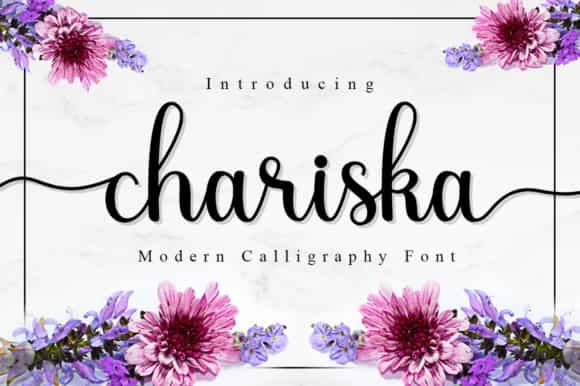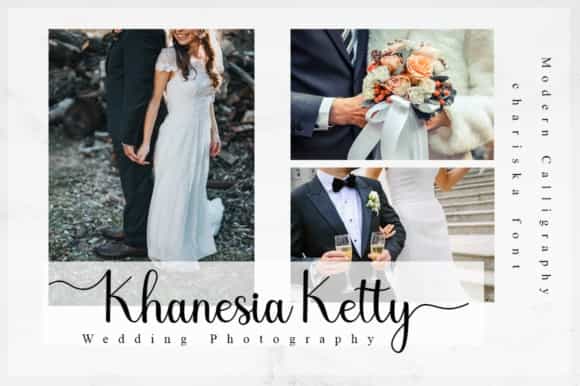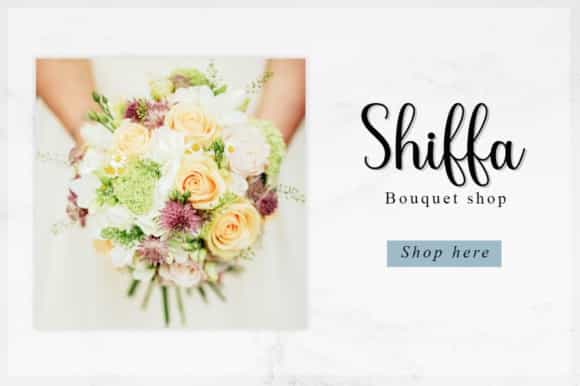
Chariska Font, a beautiful and full-featured script font with the texture of dip-pen calligraphy and many OpenType features is now available. With thin delicate strokes and thick substantial ones, Chariska is especially good for invitations, branding and editorial design.